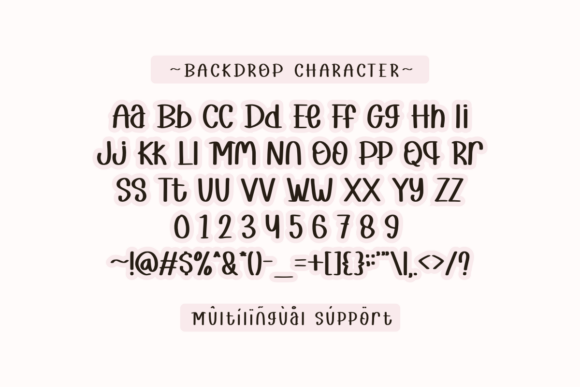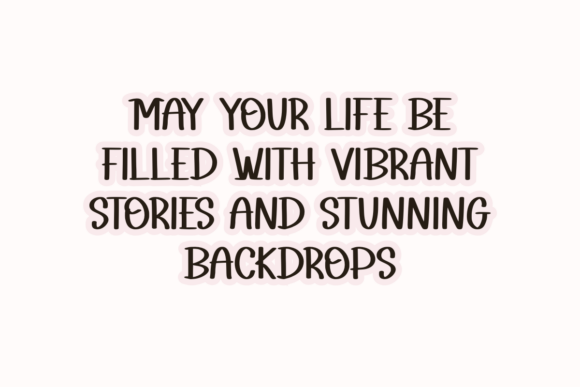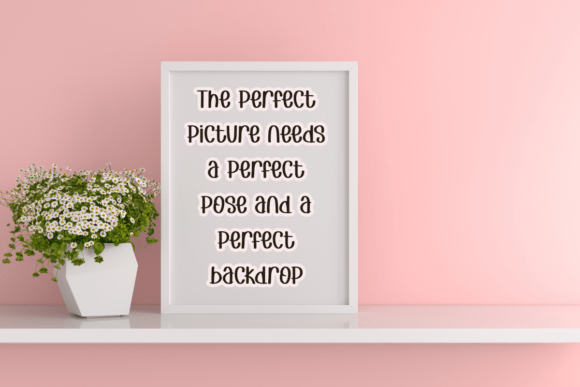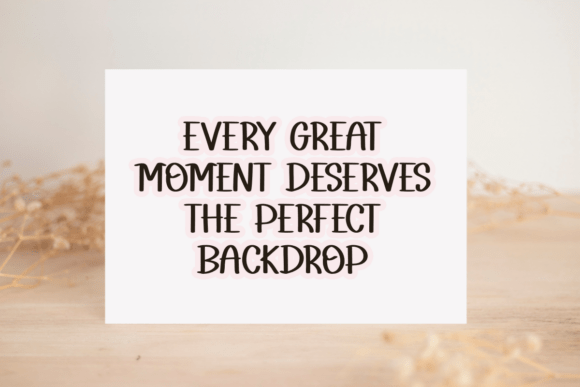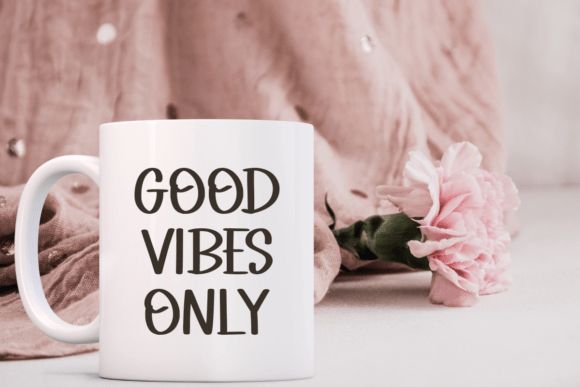
Introducing Backdrop Font: The Perfect Choice for Designers and Crafters
Are you a designer or crafter looking for a font that can add a touch of elegance and simplicity to your projects? Look no further than Backdrop Font, a cute and minimalist sans serif font that’s perfect for a wide range of applications. In this article, we’ll take a closer look at the features and benefits of Backdrop Font, and explore how you can use it to create spectacular and interesting designs.
What is Backdrop Font?
Backdrop Font is a modern sans serif font that’s designed to be clean, simple, and highly legible. Its minimalist aesthetic makes it perfect for designers and crafters who want to add a touch of sophistication to their projects without overpowering the content. The font is highly versatile and can be used for a wide range of applications, from greeting cards and wedding invitations to gift labels, mugs, t-shirts, and more.
Key Features of Backdrop Font
So what makes Backdrop Font so special? Here are just a few of its key features:
- Cute and minimalist design: Backdrop Font has a clean and simple design that’s both cute and elegant. Its minimalist aesthetic makes it perfect for designers and crafters who want to add a touch of sophistication to their projects.
- Sans serif: The font is a sans serif font, which means it doesn’t have any decorative lines or flourishes. This makes it highly legible and perfect for use in a wide range of applications.
- Highly versatile: Backdrop Font is highly versatile and can be used for a wide range of applications, from greeting cards and wedding invitations to gift labels, mugs, t-shirts, and more.
- Easy to read: The font is highly legible and easy to read, even at small sizes. This makes it perfect for use in projects where text needs to be clear and concise.
How to Use Backdrop Font
Backdrop Font is perfect for designers and crafters who want to create spectacular and interesting designs. Here are just a few ideas to get you started:
- Greeting cards: Use Backdrop Font to create beautiful and elegant greeting cards for special occasions like birthdays, weddings, and holidays.
- Wedding invitations: The font is perfect for wedding invitations, adding a touch of sophistication and elegance to your designs.
- Gift labels: Use Backdrop Font to create beautiful and elegant gift labels that add a personal touch to your gifts.
- Mugs and t-shirts: The font is perfect for use on mugs and t-shirts, adding a touch of personality and style to your designs.
- Quotes and posters: Use Backdrop Font to create inspiring quotes and posters that are both visually appealing and easy to read.
Tips for Using Backdrop Font
Here are a few tips for using Backdrop Font to get the best results:
- Use it with contrasting colors: Backdrop Font looks best when used with contrasting colors that make the text stand out. Try using it with bold colors or subtle gradients to add depth and interest to your designs.
- Experiment with different sizes: The font is highly legible at a wide range of sizes, so don’t be afraid to experiment with different sizes to find the one that works best for your project.
- Pair it with other fonts: Backdrop Font can be paired with other fonts to create interesting and dynamic designs. Try pairing it with a bold serif font for a striking contrast.
Backdrop Font is a cute and minimalist sans serif font that’s perfect for designers and crafters who want to add a touch of elegance and simplicity to their projects. Its highly versatile design makes it perfect for use in a wide range of applications, from greeting cards and wedding invitations to gift labels, mugs, t-shirts, and more. With its clean and simple design, Backdrop Font is sure to become a favorite in your font collection.